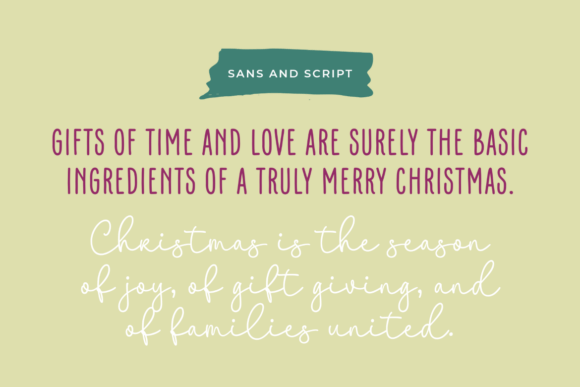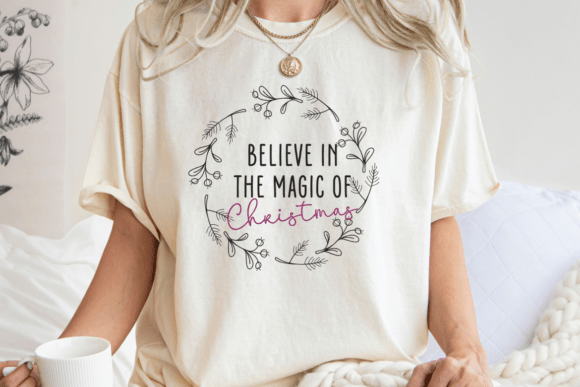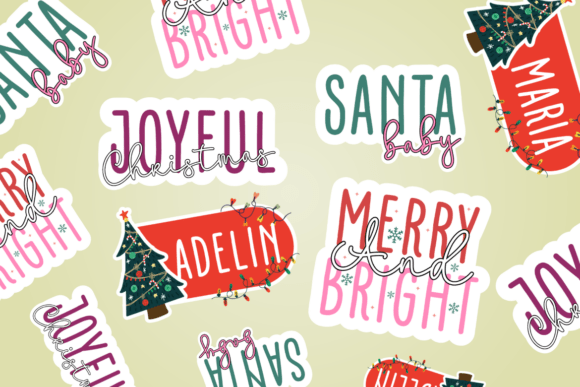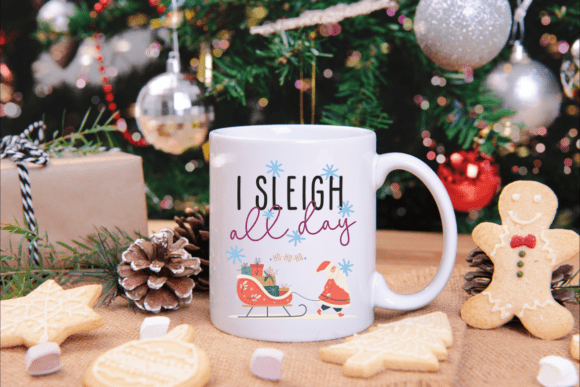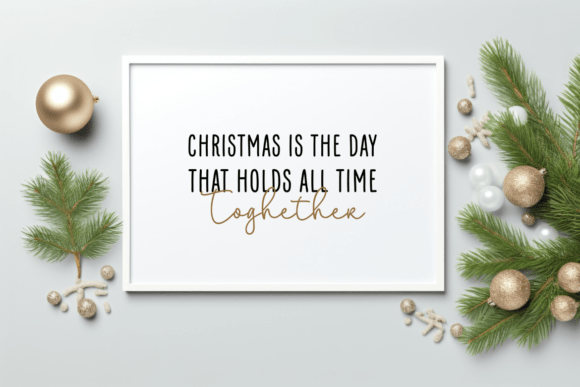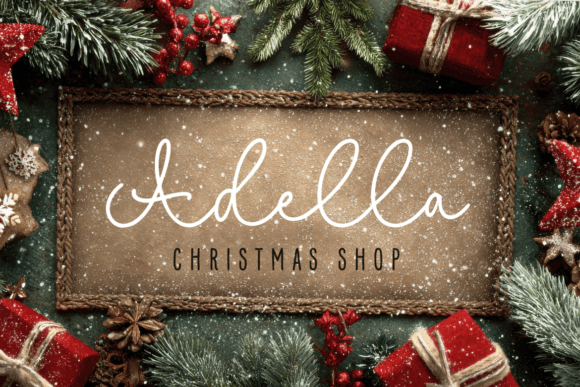
Introduction to Everfrost Christmas Duo Font
Spread seasonal cheer with the Everfrost Christmas font, a warm and cheerful handwritten duo that pairs a tall sans-serif with a flowing script.
This Everfrost Christmas typeface collection is designed to take the guesswork out of pairing, providing a cohesive look for all your holiday greetings and winter branding Use the tall, slender sans-serif for clean headings and the elegant script Everfrost Christmas font for personal signatures and decorative accents.
Key Features of Everfrost Christmas Duo Font